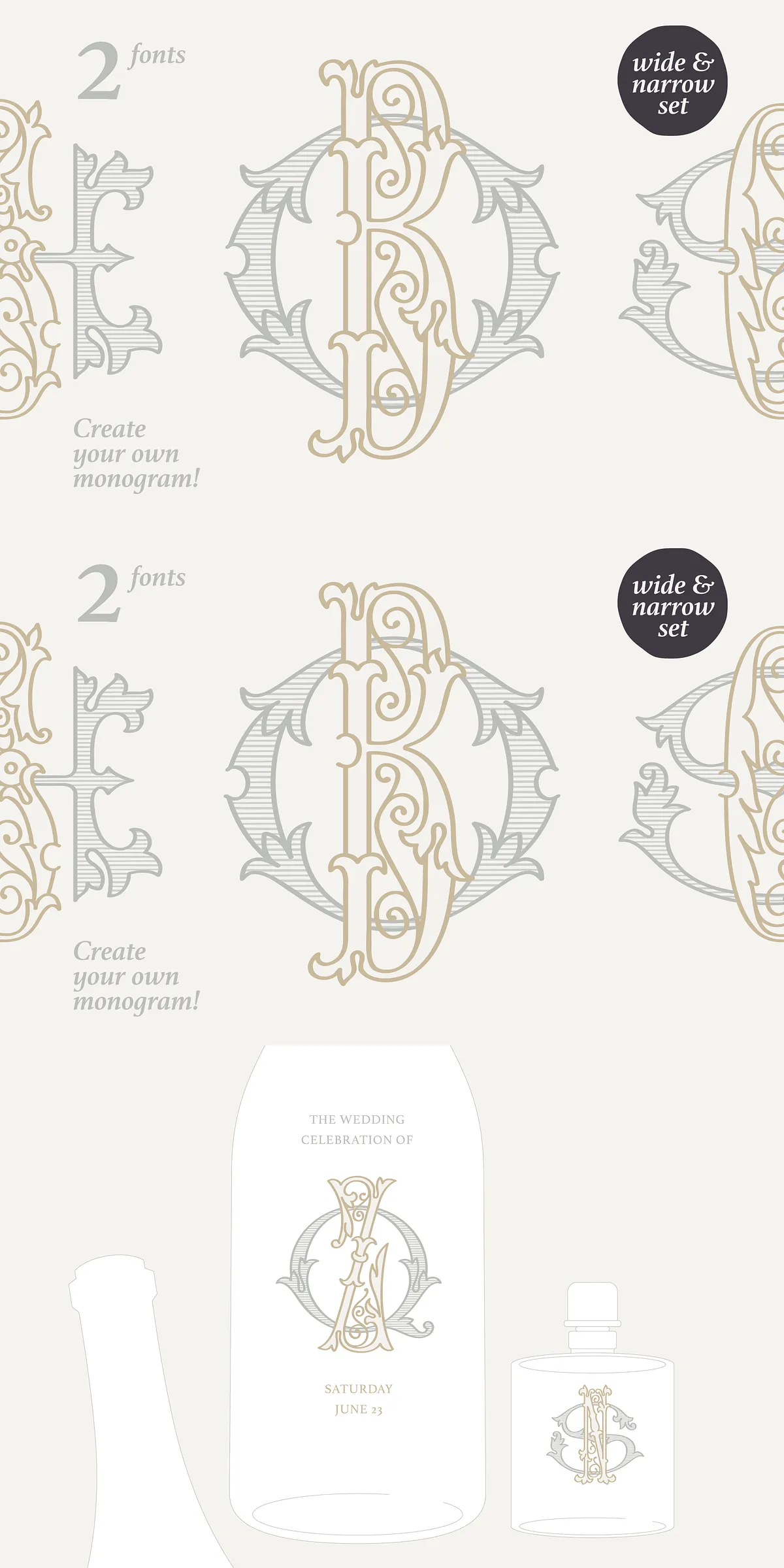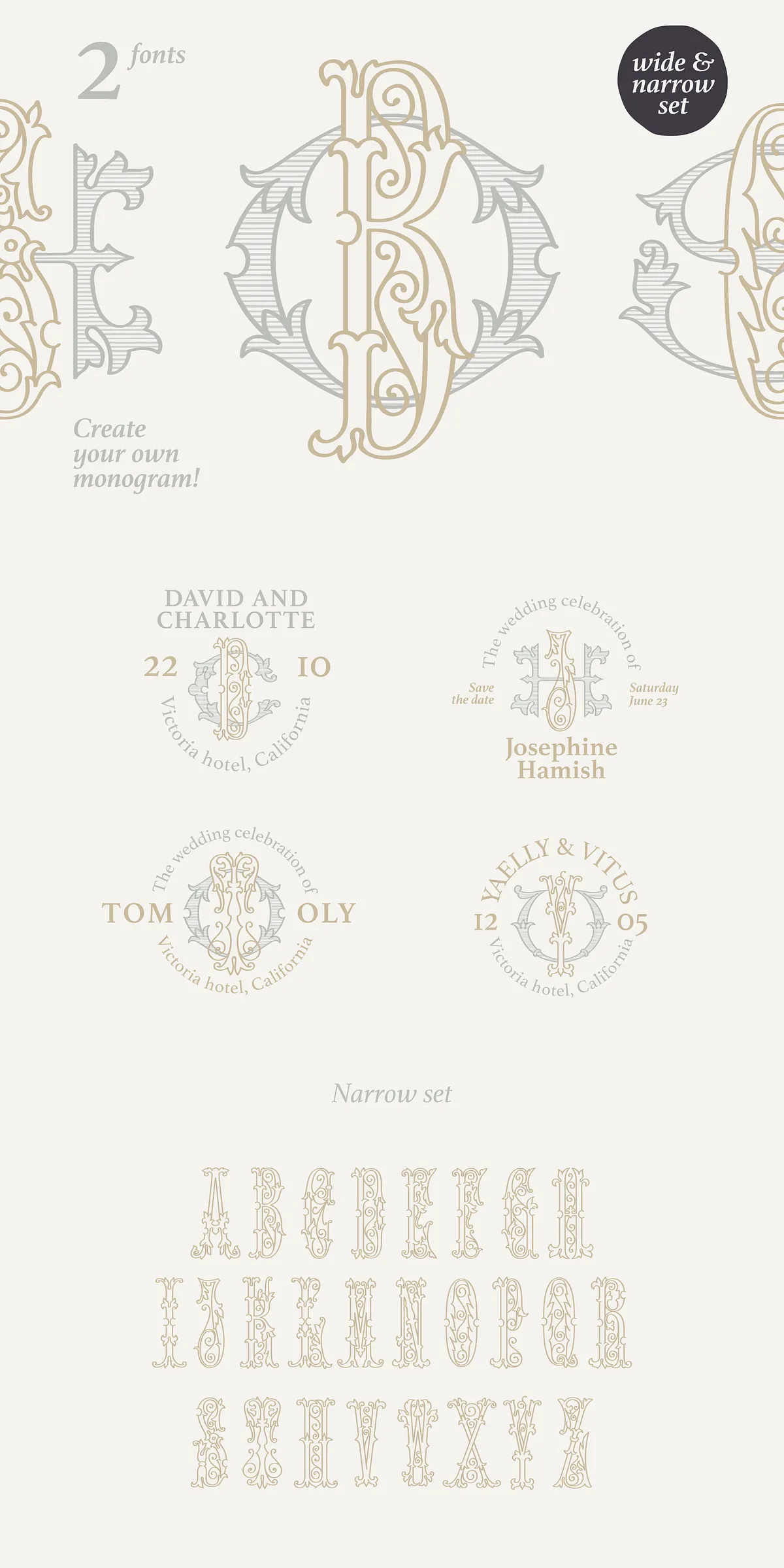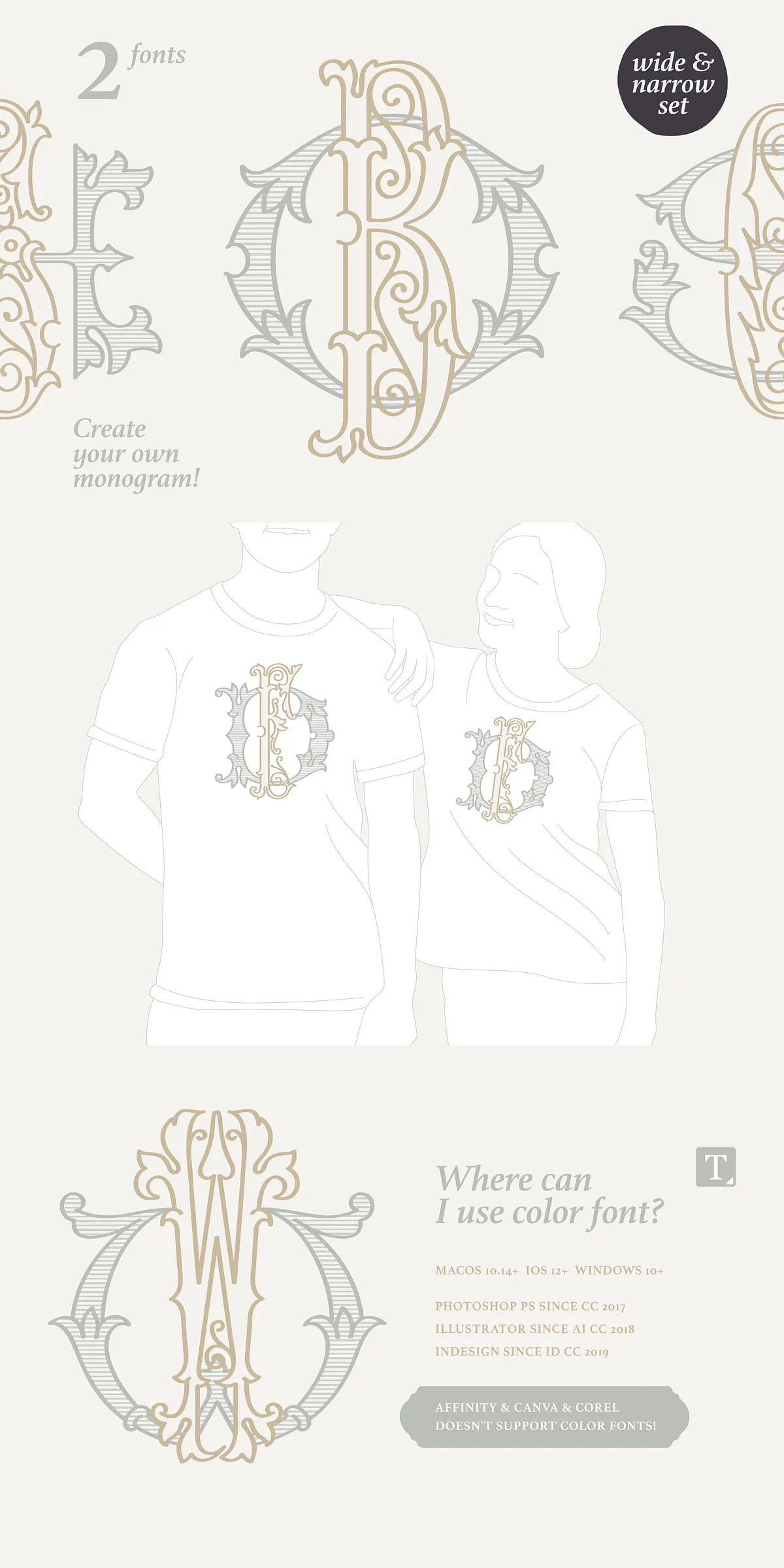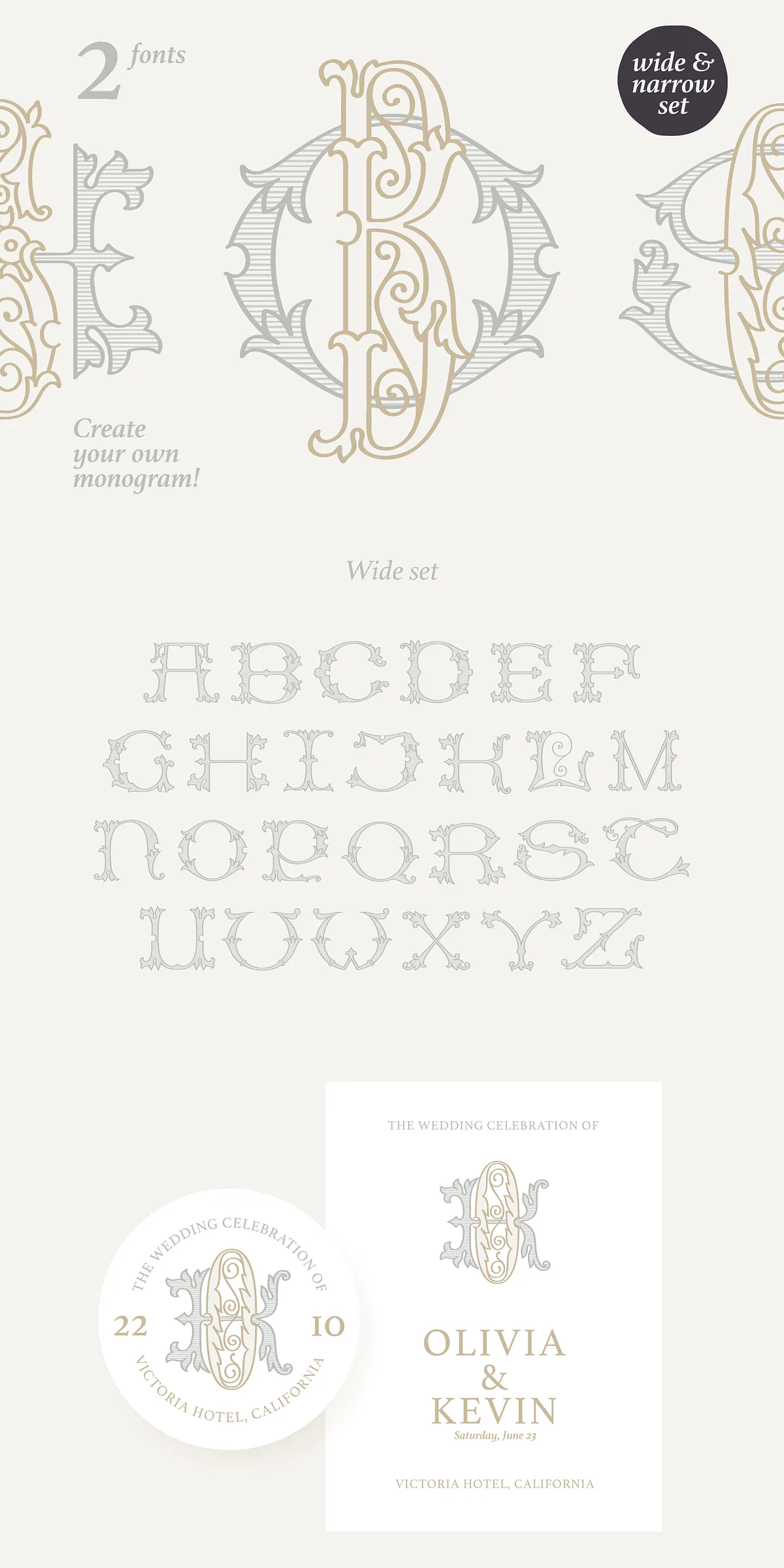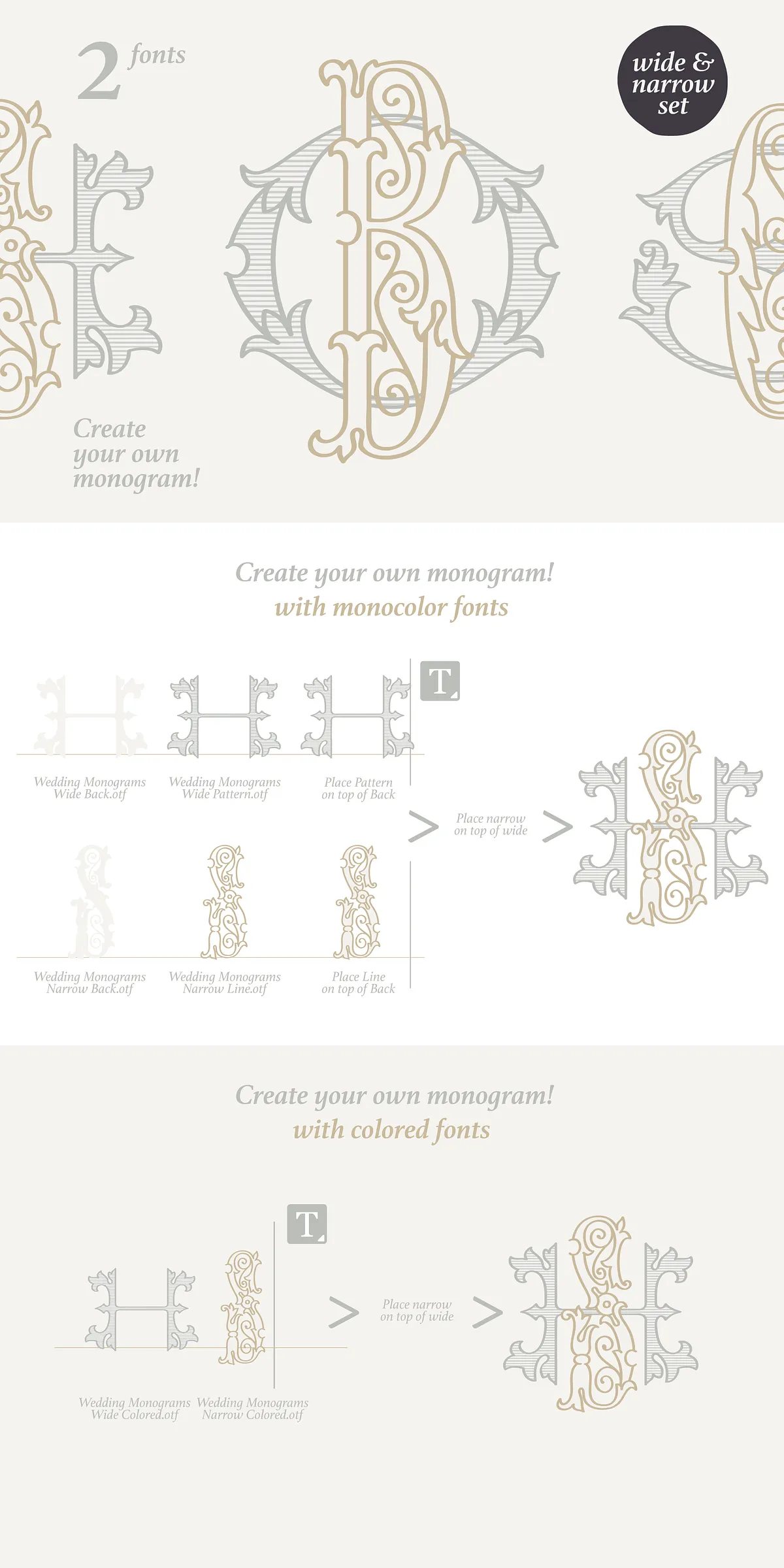
Immerse your designs in the grace of tradition with Wedding Monograms — a meticulously crafted font family inspired by the classic art of historical needlework. Drawing from the rich legacy of “Course of Women’s Needlework”, published in 1887, this collection brings vintage elegance into the digital age. Each letter is a tribute to craftsmanship, precision, and timeless romance — perfect for designs that speak of heritage, love, and refined taste.
Unlike generic fonts, Wedding Monograms aren’t just letters — they’re heirlooms in motion. Whether you’re designing wedding invitations, personalized stationery, luxury branding, or editorial layouts, this font family adds an instant layer of sophistication and emotional depth. It’s more than typography; it’s a visual narrative of love, tradition, and enduring beauty.
Powerful Features for Creatives Who Demand Detail
Designed for professional and passionate designers, Wedding Monograms delivers a suite of tools to elevate your creative workflow. Here’s what makes this family truly exceptional:
- Wide and Narrow Capital Letters – Choose from two proportional variants to create perfectly balanced, custom monograms. Combine a narrow initial on top of a wide base to achieve visual harmony and classic structure.
- Full Historical Authenticity – Every stroke reflects the original 19th-century aesthetic, preserving the integrity of its inspiration while modernizing for digital use.
Where Wedding Monograms Shine: Real-World Applications
This font family is a masterful choice across a wide range of luxury and emotional design areas. Let’s explore where it truly transforms simple ideas into meaningful experiences:
- Wedding Invitations & Save-the-Dates – Create iconic, personalized invites that make guests feel part of something special. The elegant style sets a tone of grace and anticipation.
- Luxury Branding & Packaging – Build upscale identities for boutiques, skincare lines, or artisanal products that emphasize craftsmanship and heritage.
- Portrait & Portrait Studio Branding – Use as signature lettering in photography studios, creating a cohesive, refined visual language.
- Book Covers & Publishing – Add a classic, narrative quality to historical novels, wedding journals, or art books.
Create with Purpose, Design with Passion
Wedding Monograms isn’t just a font — it’s an invitation to design with intention. It’s for creators who believe that every word, every line, every letter carries meaning. It’s for those who know that the most powerful designs aren’t loud — they’re graceful, thoughtful, and timeless.
Pro Tip: Pair a monogram with delicate floral accents or soft gradients to create a mood that feels both historic and modern. Combine it with a simple sans-serif for body text to create contrast that draws attention to the centerpiece — the monogram itself.